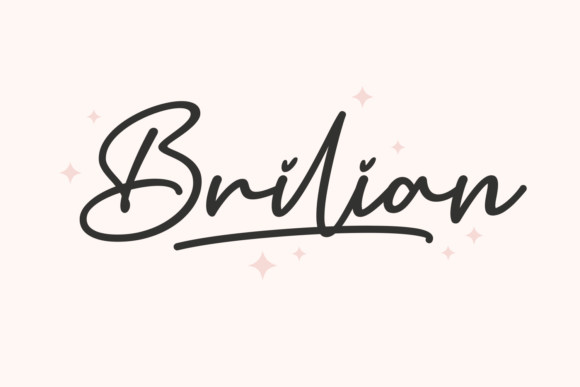
The Elusive Perfect Font: My Journey with Brilian
Ah, the quest for the perfect font. We’ve all been there – scrolling through endless font libraries, trying to find that one magical typeface that brings our design vision to life. I recall working on a wedding stationery project, determined to create a bespoke feel that would wow my client. But, as I began to explore font options, I hit a roadblock. Nothing seemed quite right – either too formal, too bland, or just plain overused. That’s when I stumbled upon Brilian, a stylish signature script font that would change the game.
First Impressions: A Love Affair with Brilian
As soon as I laid eyes on Brilian, I knew I had found something special. This font radiates charm and creativity with its handwritten elegance and whimsical heart accents. Designed with a modern, free-flowing stroke and a confident underline, Brilian is perfect for personal branding, social media, wedding stationery, and feminine product packaging. Its lighthearted feel and expressive detail make every word shine – just like your message deserves.
- ✨ Elegant and modern handwritten style
- ✅ Whimsical heart accents add a touch of playfulness
- 💫 Perfect for personal branding, social media, and wedding stationery
- 🎉 Lighthearted feel that makes every word shine
- 🤔 Limited use of uppercase letters, which can make it less suitable for certain design applications
- ⚠️ Some users may find the font too delicate for large-scale or bold designs
The Story Behind Brilian: Designer Inspiration
While the true story behind Brilian’s design may be unknown, it’s easy to imagine a designer with a passion for handwriting and elegance. Perhaps they were inspired by the flowing scripts of vintage letters, or the whimsical doodles of a creative journal. Whatever the inspiration, Brilian is a true masterpiece – a font that brings a touch of personality and charm to any design.
Q: What type of designs is Brilian best suited for?
A: Brilian is perfect for personal branding, social media, wedding stationery, and feminine product packaging.